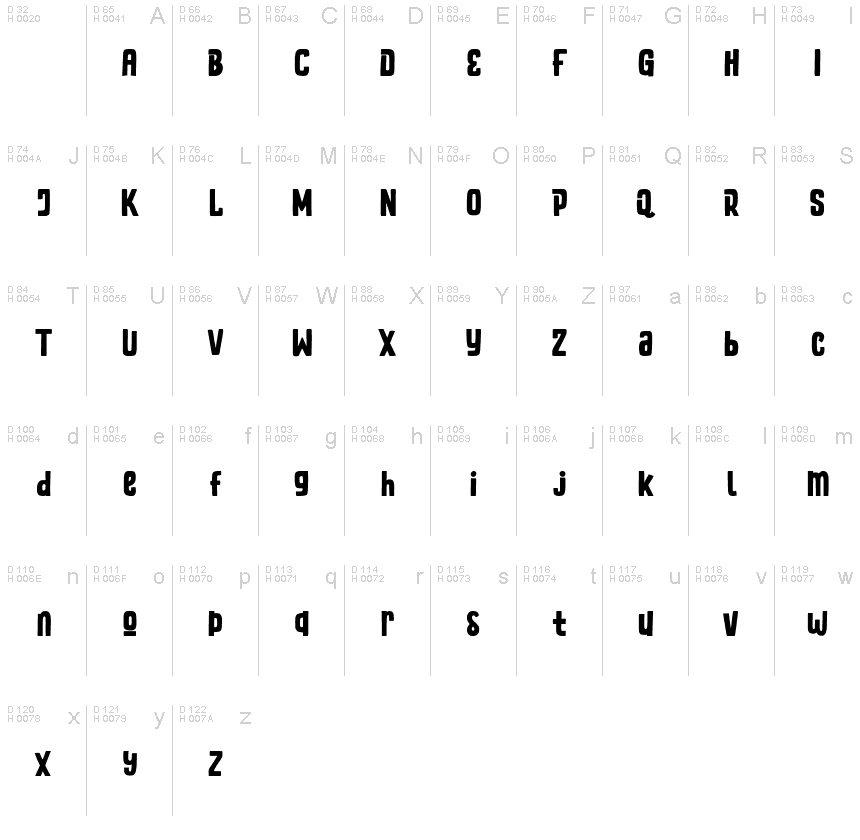
Marchton Free Regular
Marchton, the masterpiece of Maulana Creative, is a display font that exudes a sense of sophistication and elegance. Its condensed width adds to its uniqueness, making it perfect for projects that require a touch of modernity and minimalism. From fashion and beauty magazine covers to branding materials for luxury products and services, Marchton is the perfect choice. Its semi-bold typeface also makes it suitable for packaging designs, event posters, and even restaurant menus. With its sleek curves and sharp edges, this font is sure to make any project stand out with its timeless appeal.